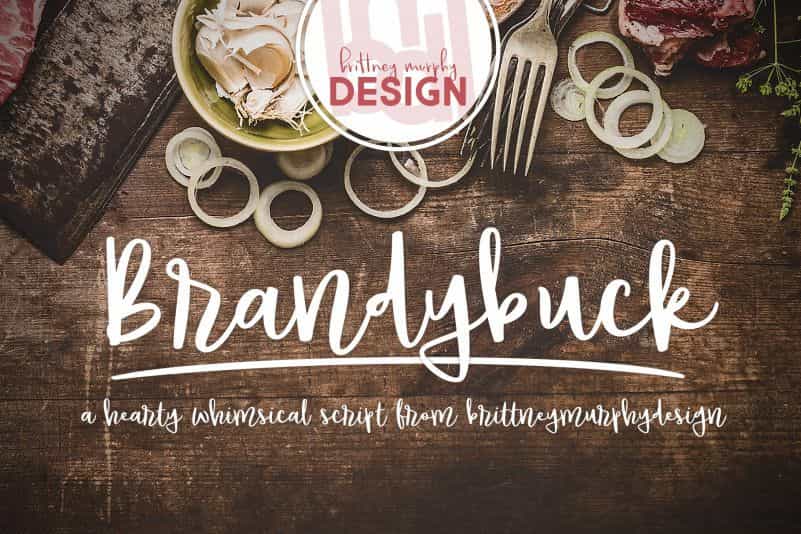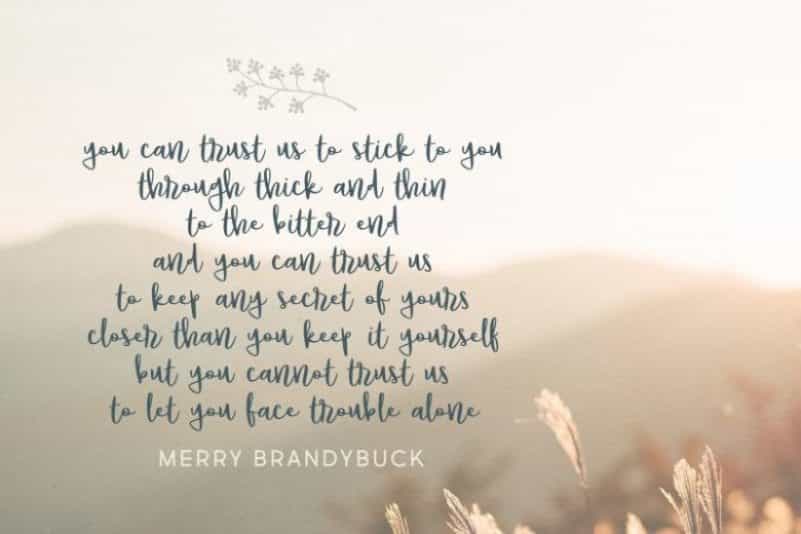
Discover Brandybuck Font, part of the Calligraphy Handwritten collection—a versatile and unique font perfect for adding a personal touch to your projects. Download it for free and enjoy crafting designs with style, from invitations to social media posts. This font is available exclusively for personal use, giving you the freedom to create without limits. Unlock your creativity with Brandybuck Font today!
The curvature of the Brandybuck Font was fully designed to be easily incorporated into your designs. These fonts are the perfect starting point for what you want it to be! Realize the beauty in your own imagination while this font gives you a fast start to what it can be.